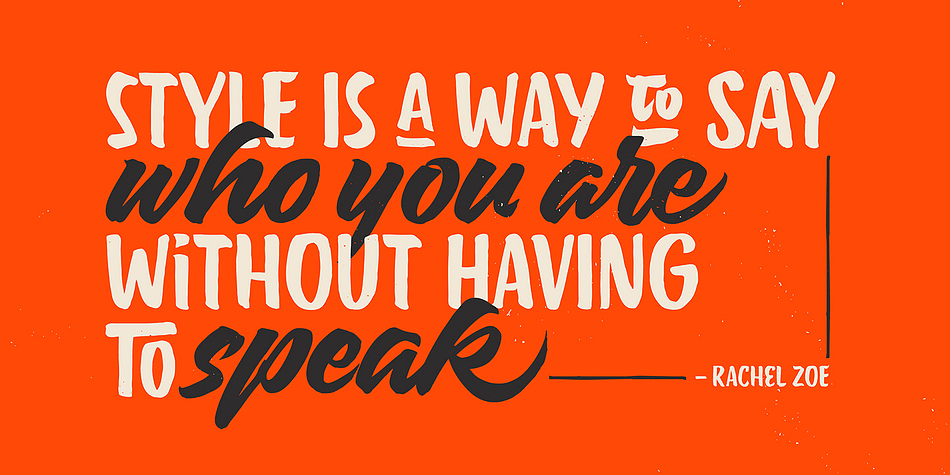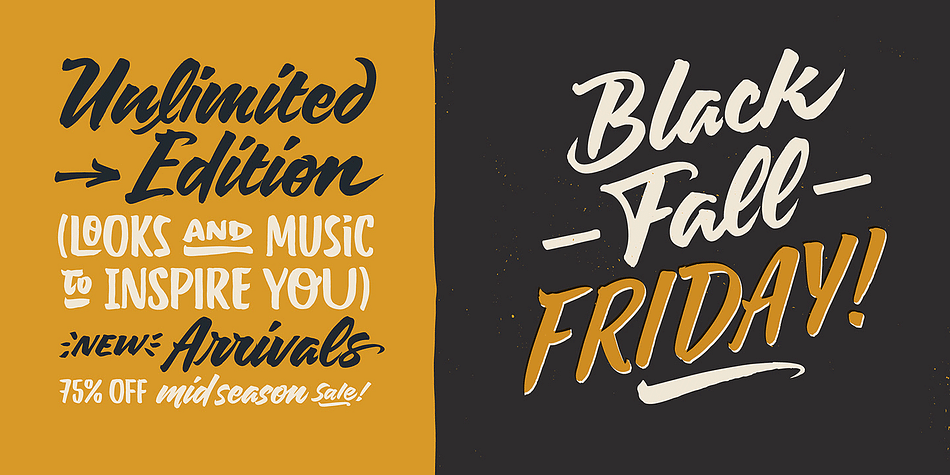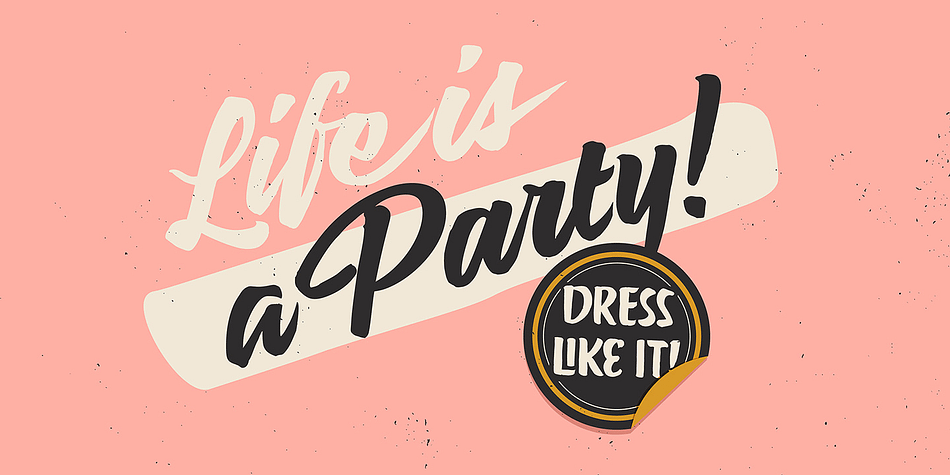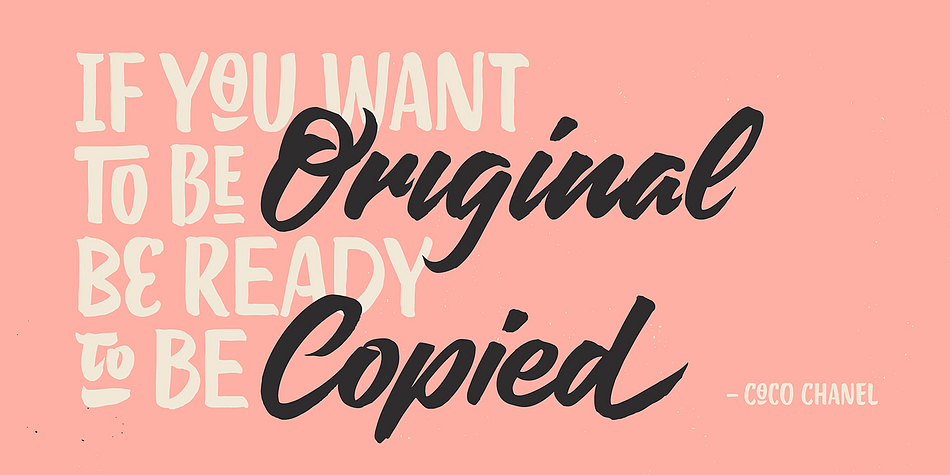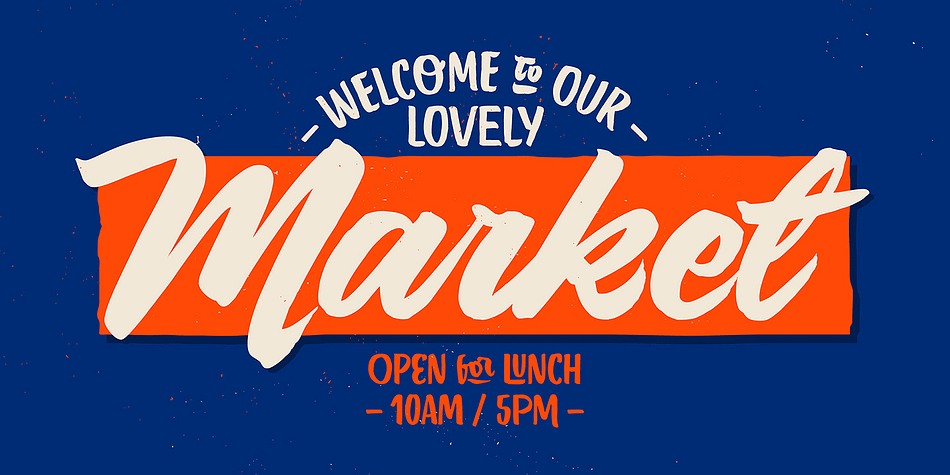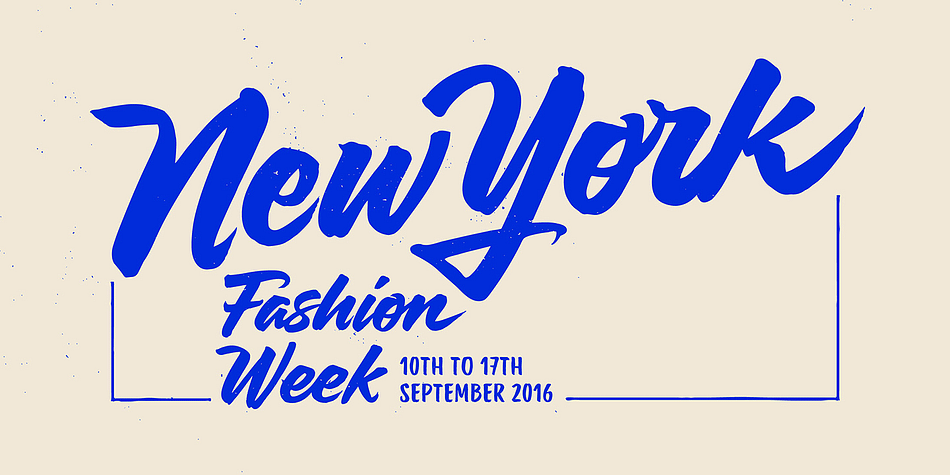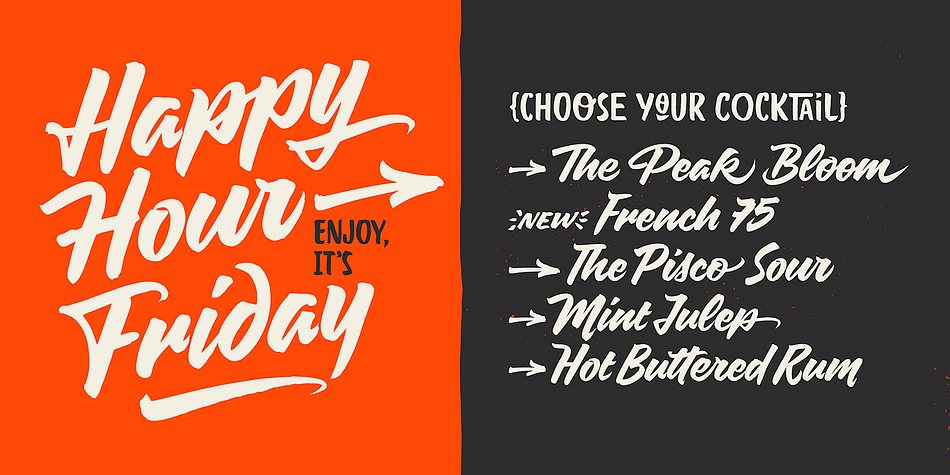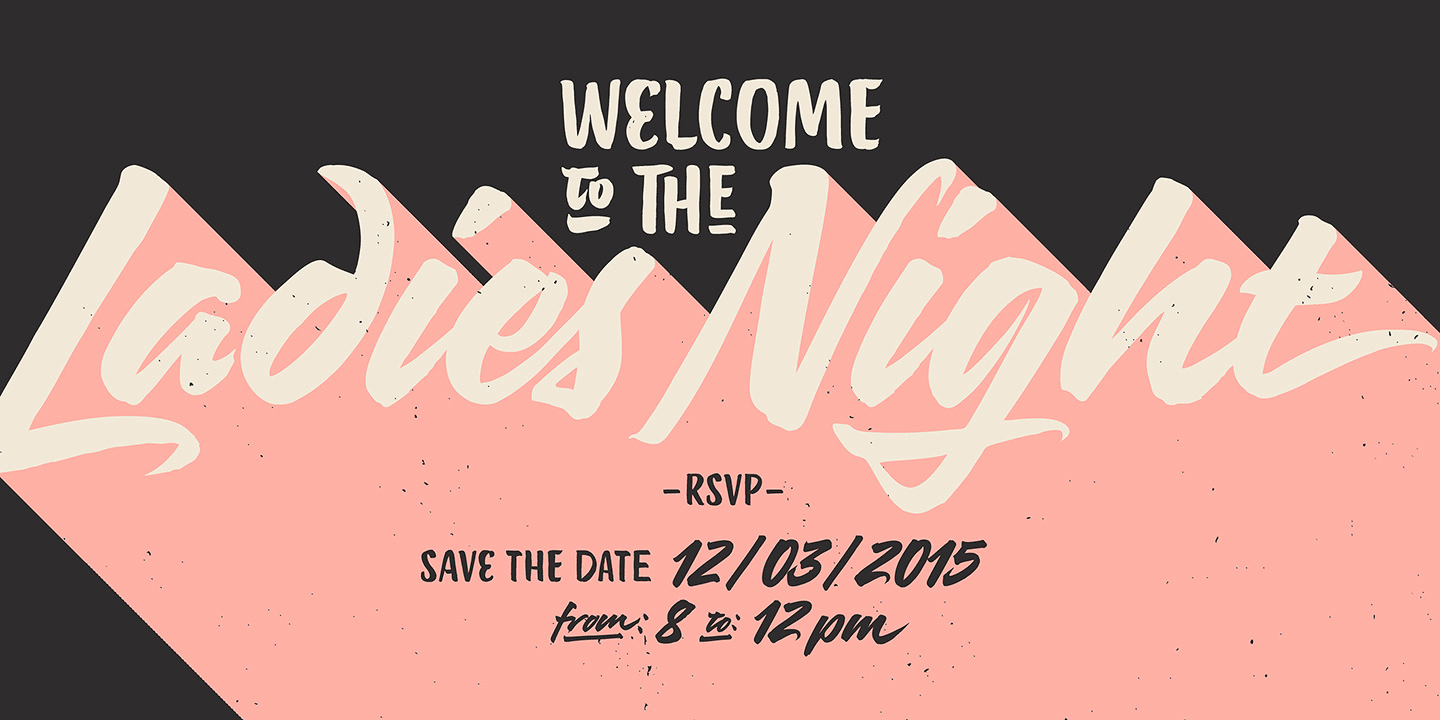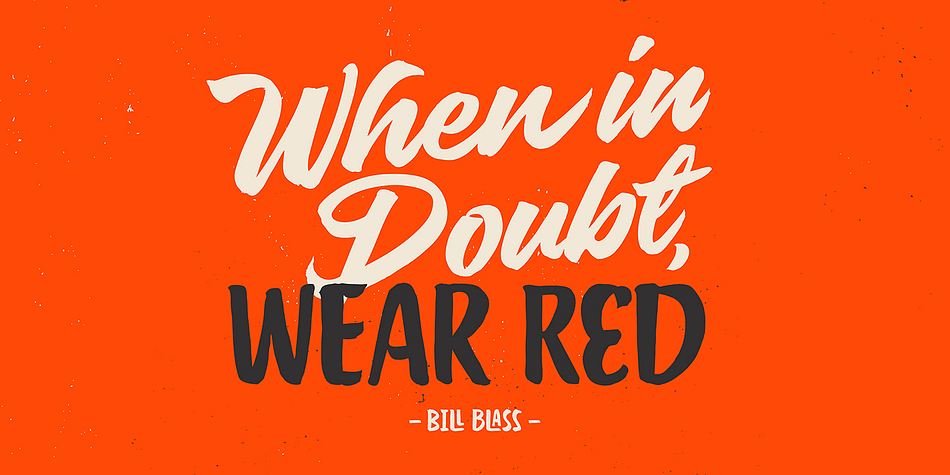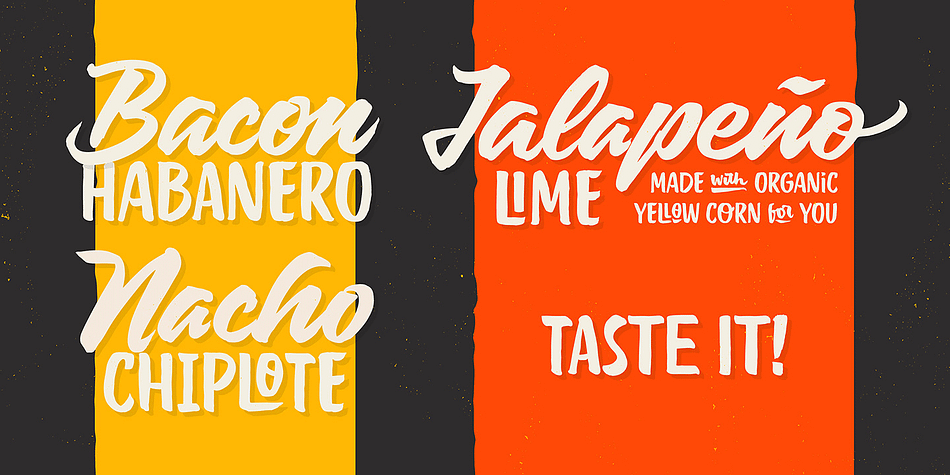
Designed by Yani Arabena, Guille Vizzari and Alejandro Paul, Quotes is a brush script and hand display font family. This typeface has two styles and was published by Sudtipos.
Quotes is the second typeface calligraphed by Yani Arabena, designed along with Guille Vizzari and Ale Paul, for Sudtipos.
Being thrilled by the use of the pointed brush, spontaneous messages, gesture and freshness to represent inspirational phrases and quotes written by hand, Quotes comes in two handwriting styles: Script and Caps.
Quotes Script and Quotes Caps are thought together and complement each other filling with rhythm and infinite sensations to the spoken words. A more free and spontaneous version Script, joined by an uppercase system Caps, that offers a huge amount of alternate glyphs, ligatures and connectors, to enrich different messages brought to life with this type family.
Quotes Script counts on a great variety of alternate signs in its lowercase as well as its uppercase letters. It hands a combination of ligatures and capital alternates that allows to shape the beginnings and endings of words and phrases intended to be inspiring and to inspire others that read them. Quotes also stands for the fashion universe, Gourmet, Natural, the D.I.Y. passionates, and for all those who seek for the Handcrafted spirit and agrees that it adds an added value to its products and in their communication possibilities.
Nowadays, new trends in the calligraphic and drawn letters fields, have lead to the use of the brush pen as a daily practice, bringing to life phrases that motivates people to share their thoughts. Quotes is a typeface that invites to write, share and influence others to make their own.
Sometimes a feeling can’t be explained, but Quotes is a font that can.